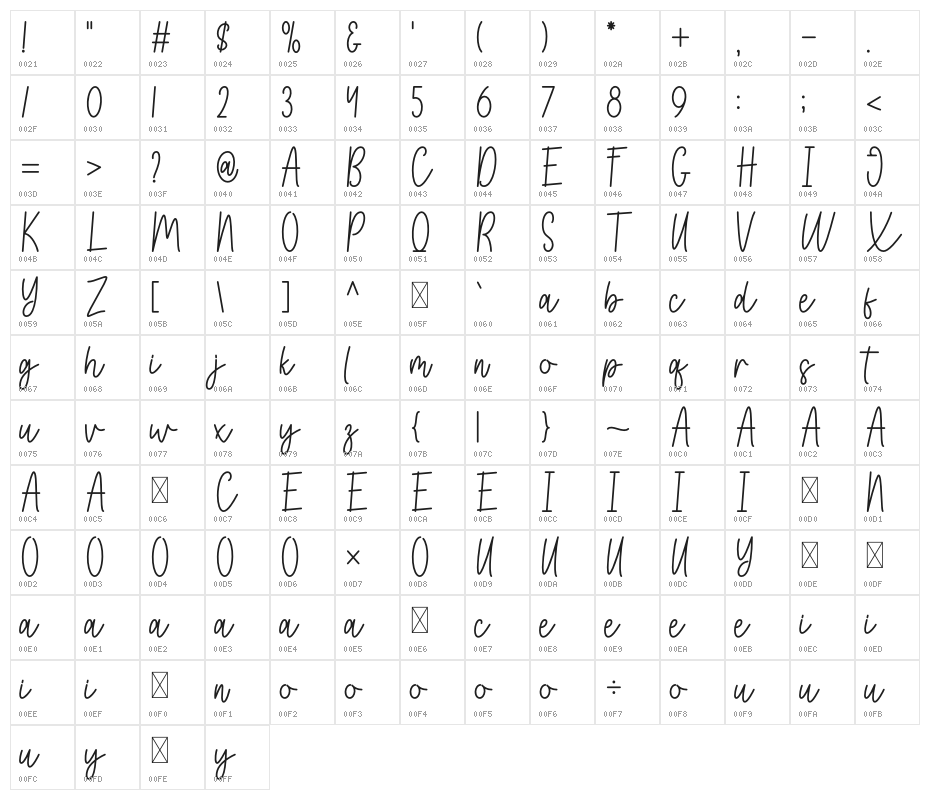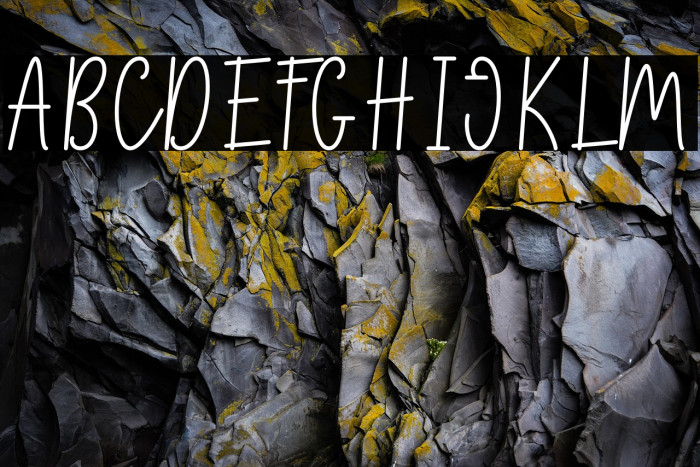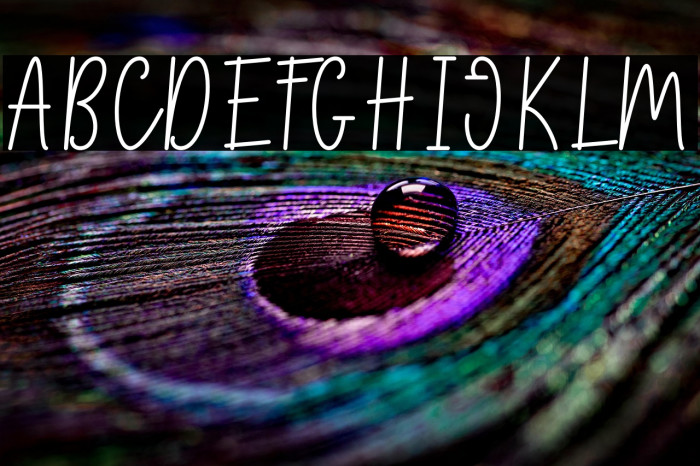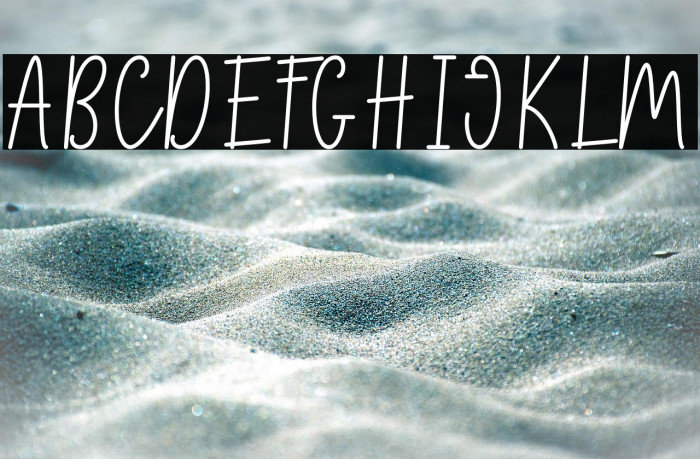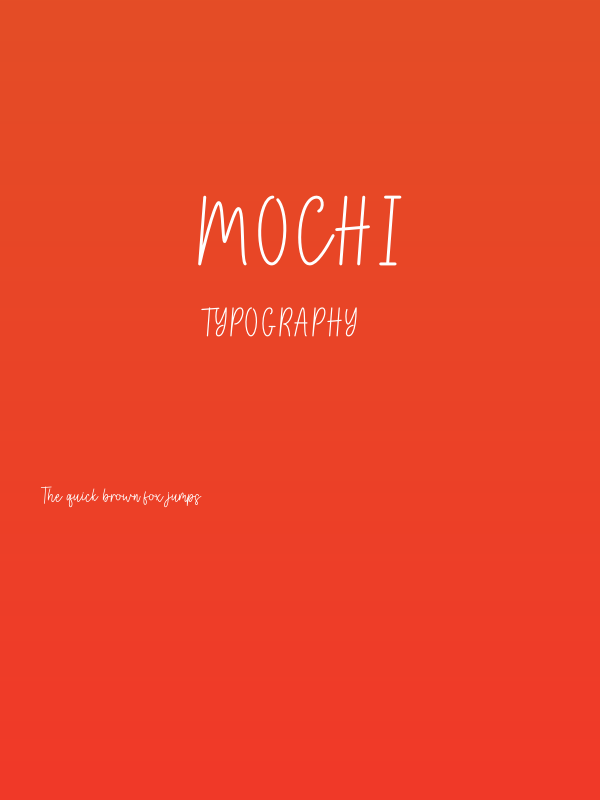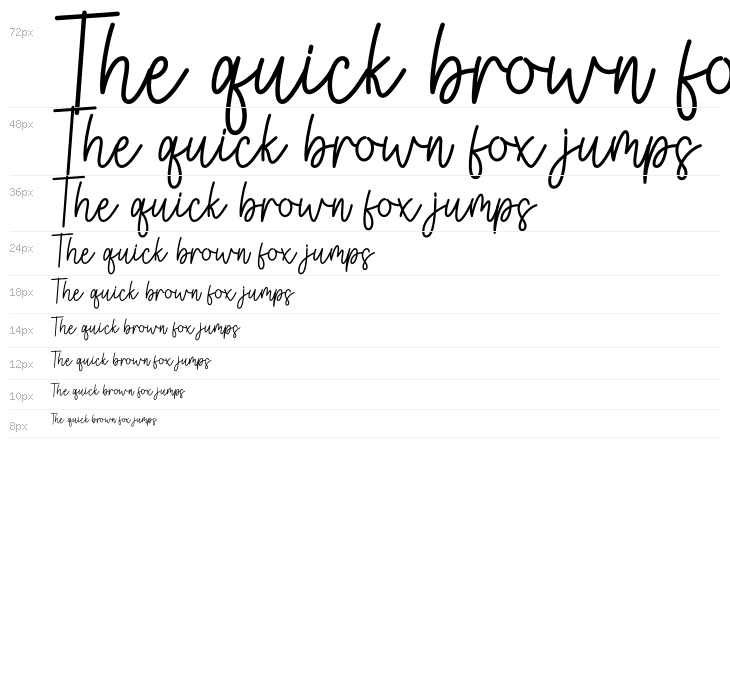
Mochi Font
Mochi Description
This font features a playful and informal handwritten style, characterized by its tall, narrow letters and slightly irregular strokes. The uppercase letters are distinct with a whimsical touch, while the lowercase letters maintain a consistent flow, adding to the font's casual charm. The numerals are clear and legible, matching the overall aesthetic. Special characters are creatively integrated, enhancing the font's versatility. The strokes are consistent in weight, providing a balanced appearance that is both approachable and stylish.
| Proposed Projects | Ideal for greeting cards, children's books, personal branding, and creative projects requiring a friendly, informal touch. |